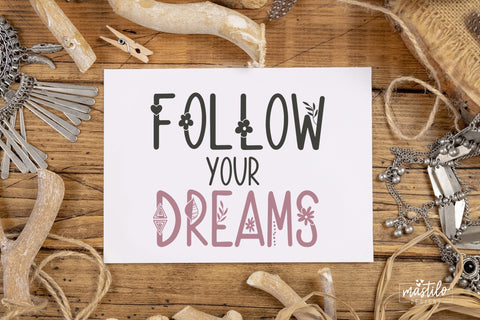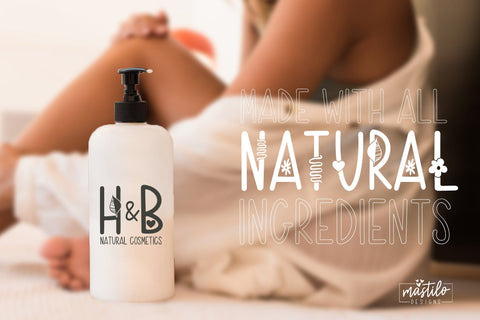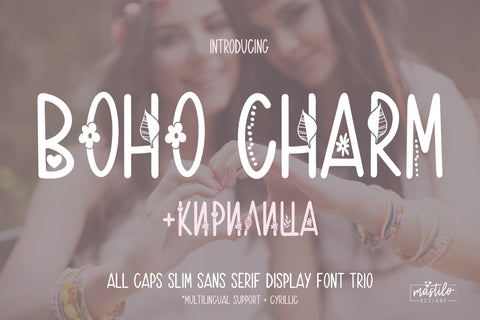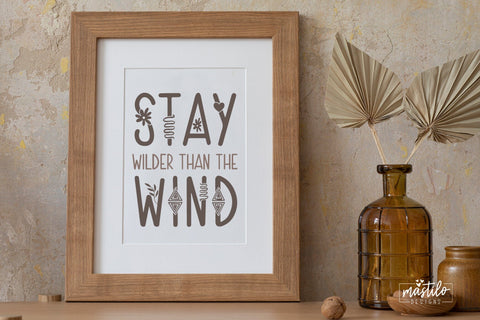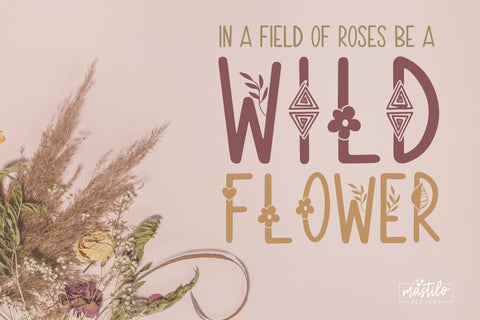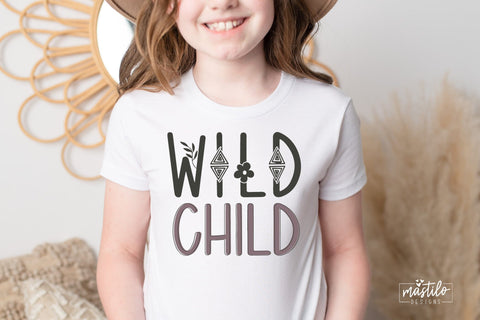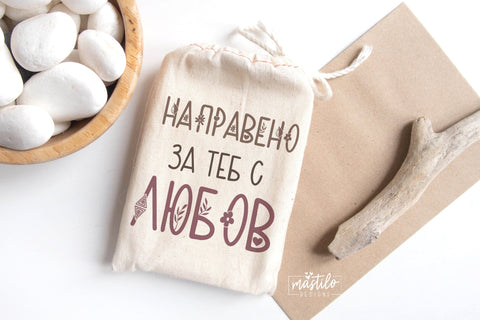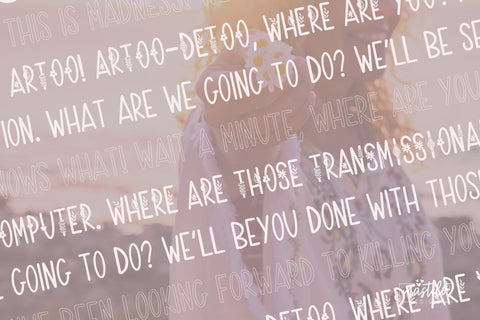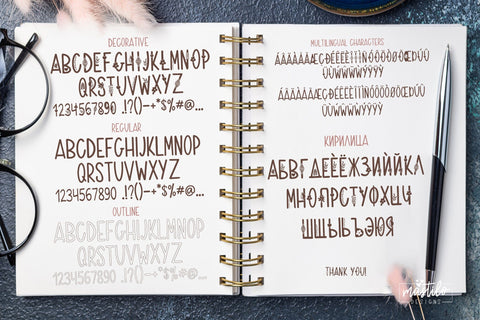
Boho All Caps Slim Sans Serif Font - Boho Charm | Cyrillic Font
Introducing Boho Charm, a slim hand drawn all caps slim font trio with a boho retro touch. It is a versatile font, with possibilities for use for all your projects.
With a multilingual support this font makes a great addition to your font book.
Boho Charm includes:
- All Caps characters
- Regular, Decorative and Outline options
- numbers + punctuation
- Western European Language Support
- Cyrillic Characters (all Caps)